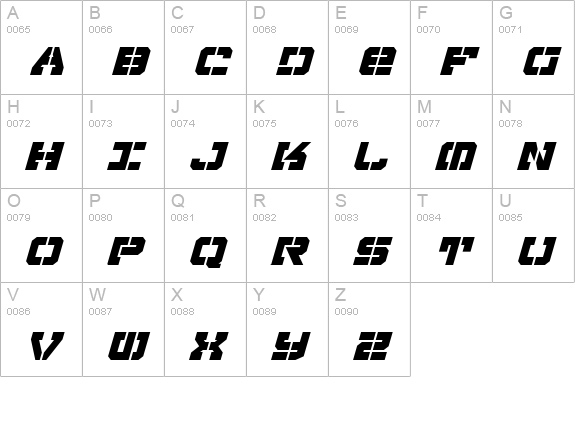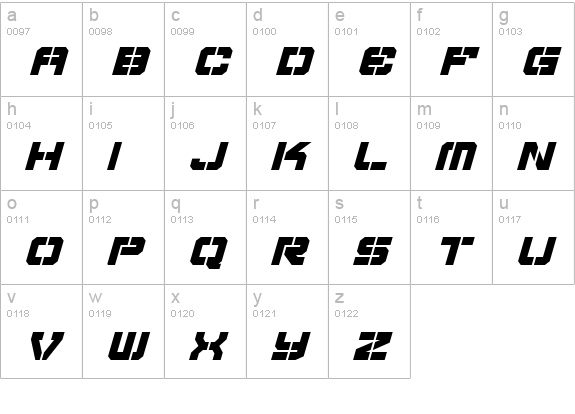
Vyper Bold Italic Font Details
Vyper Bold Italic is a strong, high-contrast, italic variant in the Vyper typeface family \xE2\x80\x94 well suited to headlines, attention-grabbing titles, and strong calls-to-action.
Vyper Bold Italic is a striking and dynamic font that exudes a sense of boldness and elegance. Its sleek and modern design makes it perfect for adding a touch of sophistication to any project. The italicized style adds a sense of movement and flair, making it an ideal choice for headings, logos, and branding materials. And the best part? Vyper Bold Italic is available for free download at FontsMarket.com. You can easily access this stunning font and elevate your designs with its unique and eye-catching look. Don't miss out on the opportunity to enhance your projects with Vyper Bold Italic - download it today and let your creativity shine!